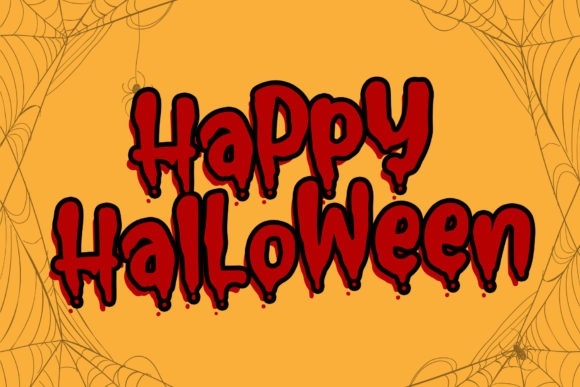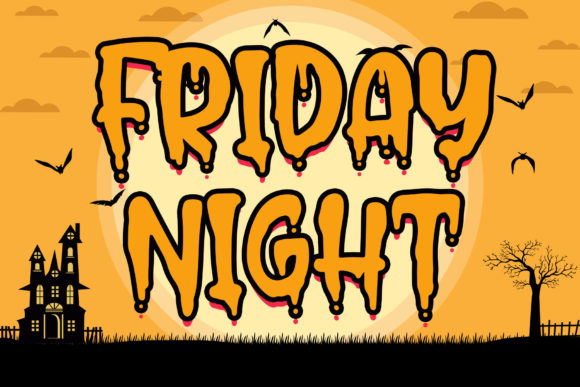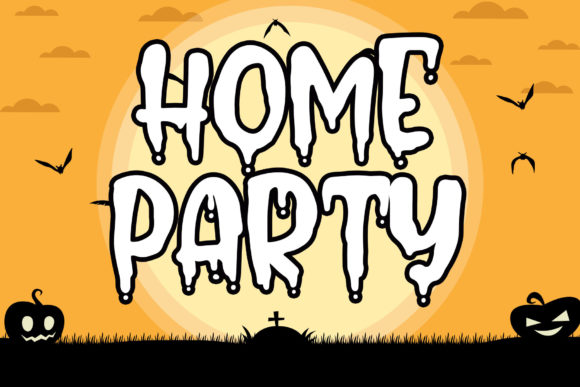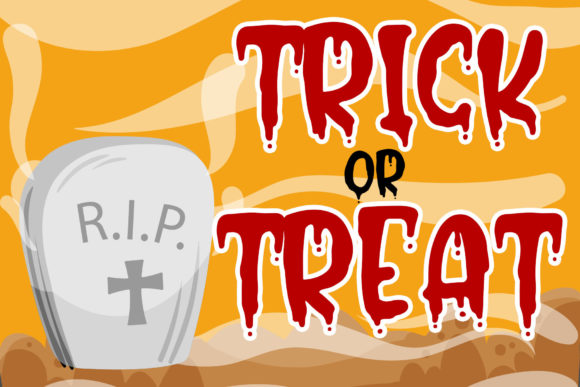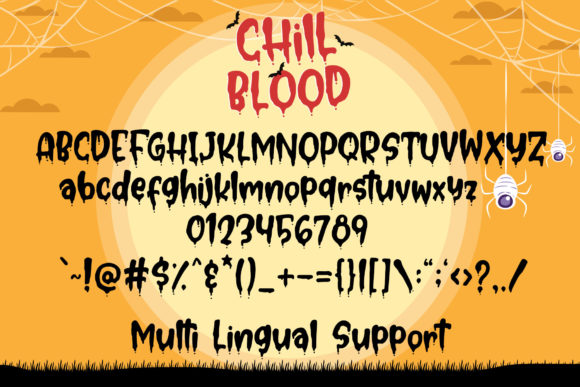
Chill Blood Font
About Chill Blood Font
Chill Blood is a bold and unique display font. A little bit quirky, this font looks incredibly adept on a wide variety of contexts!